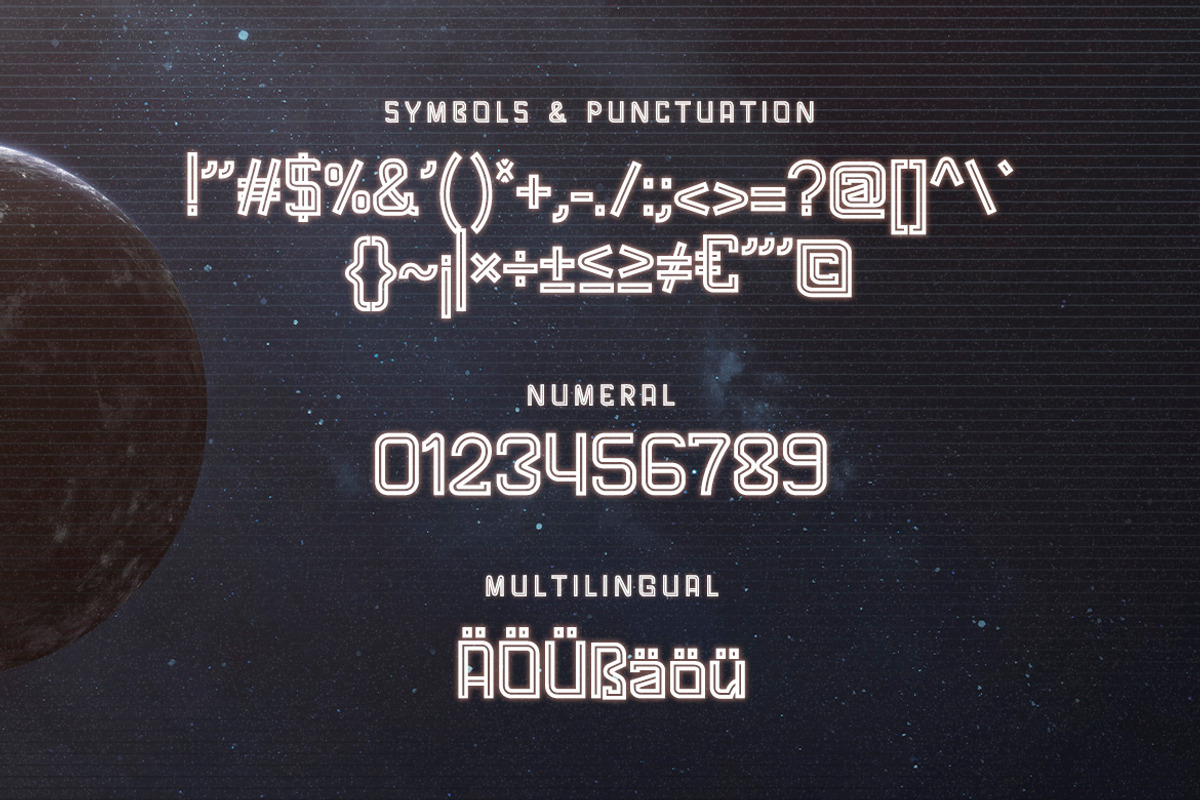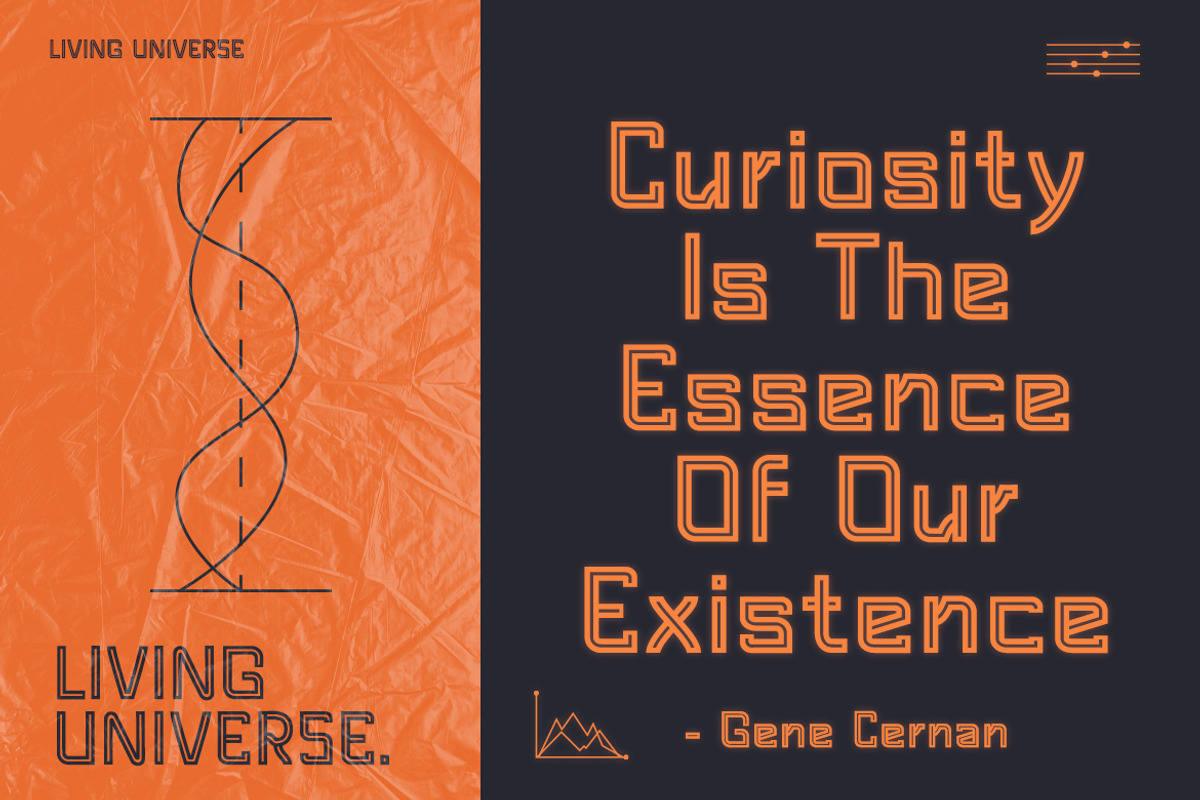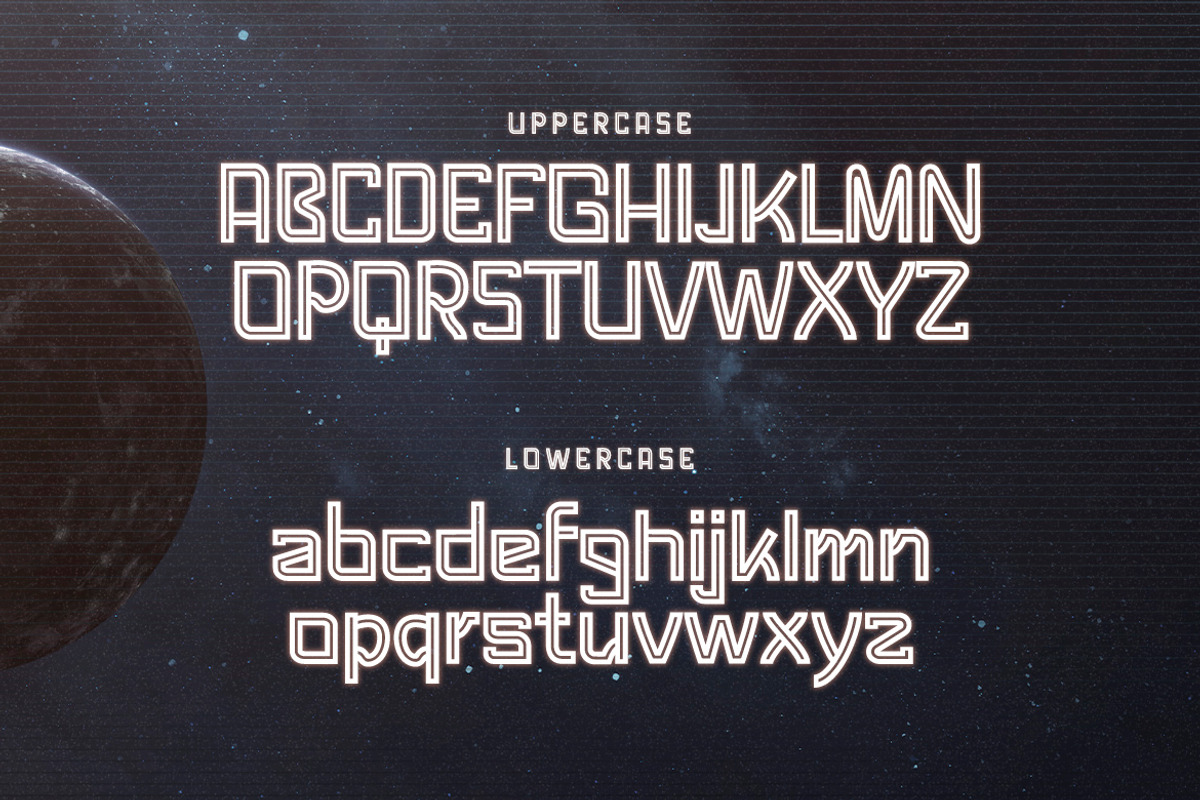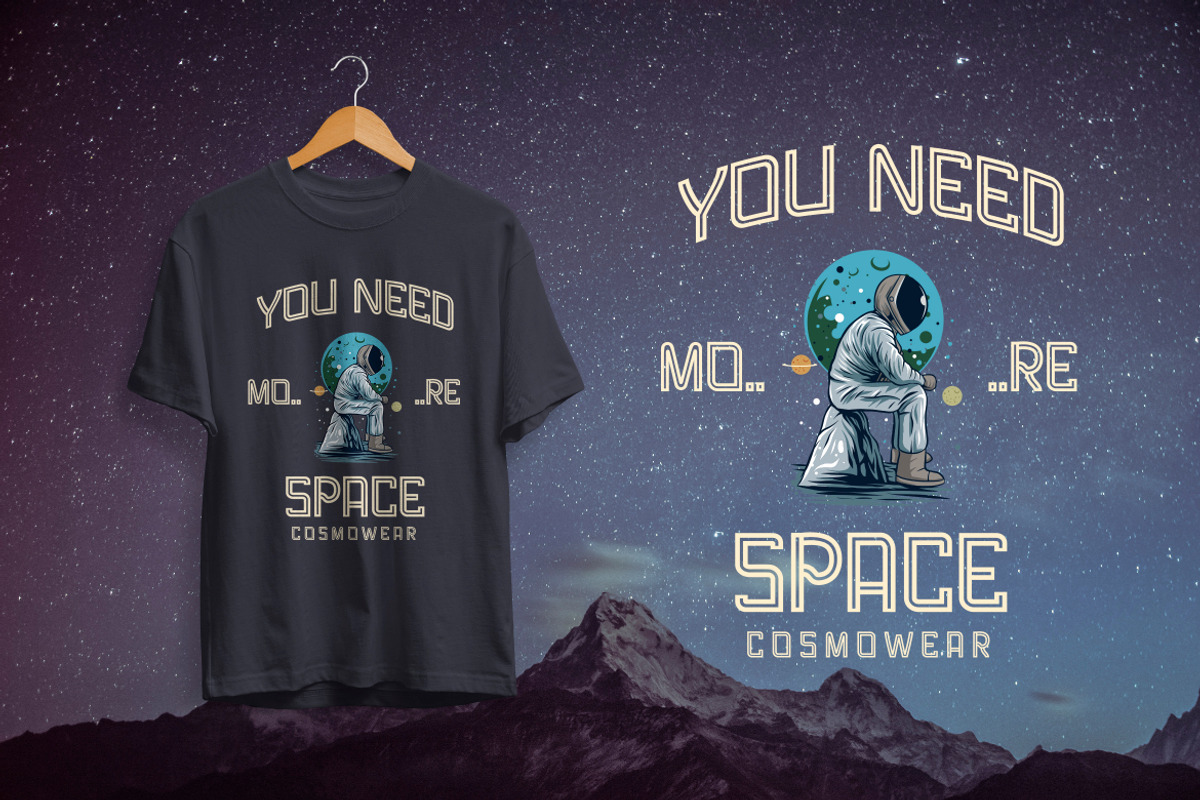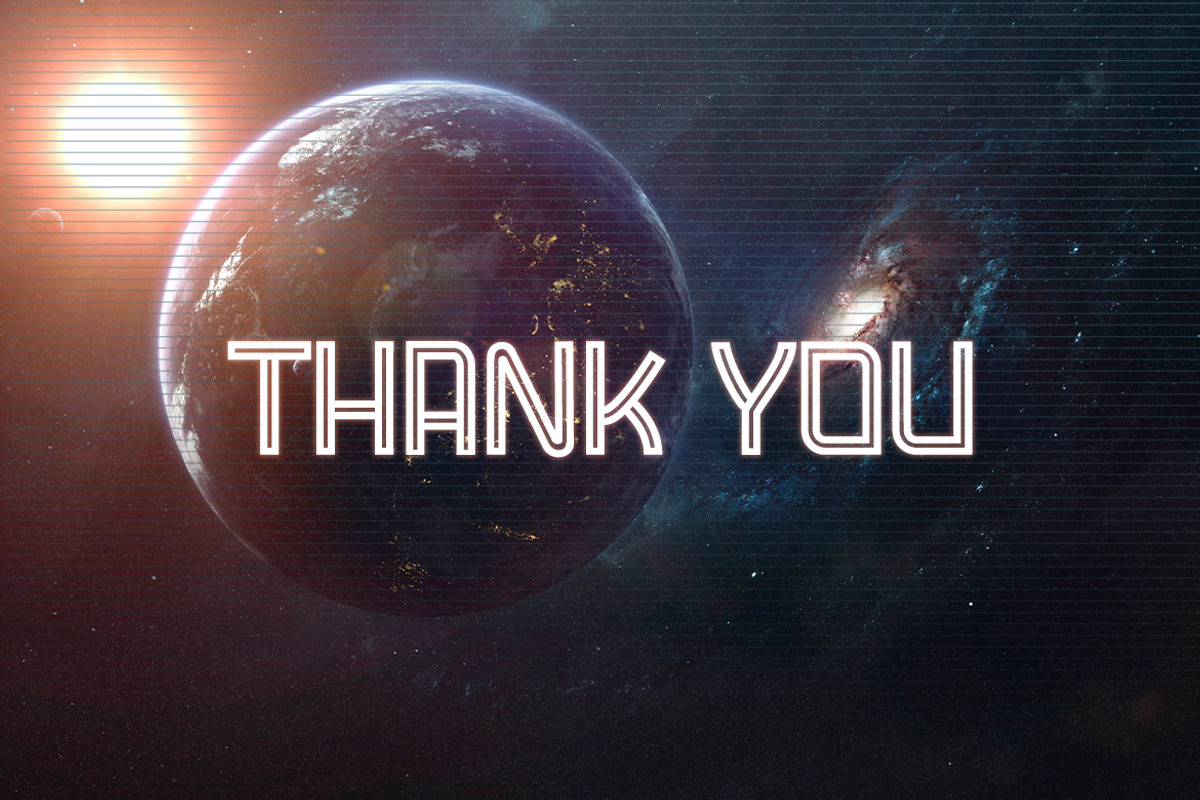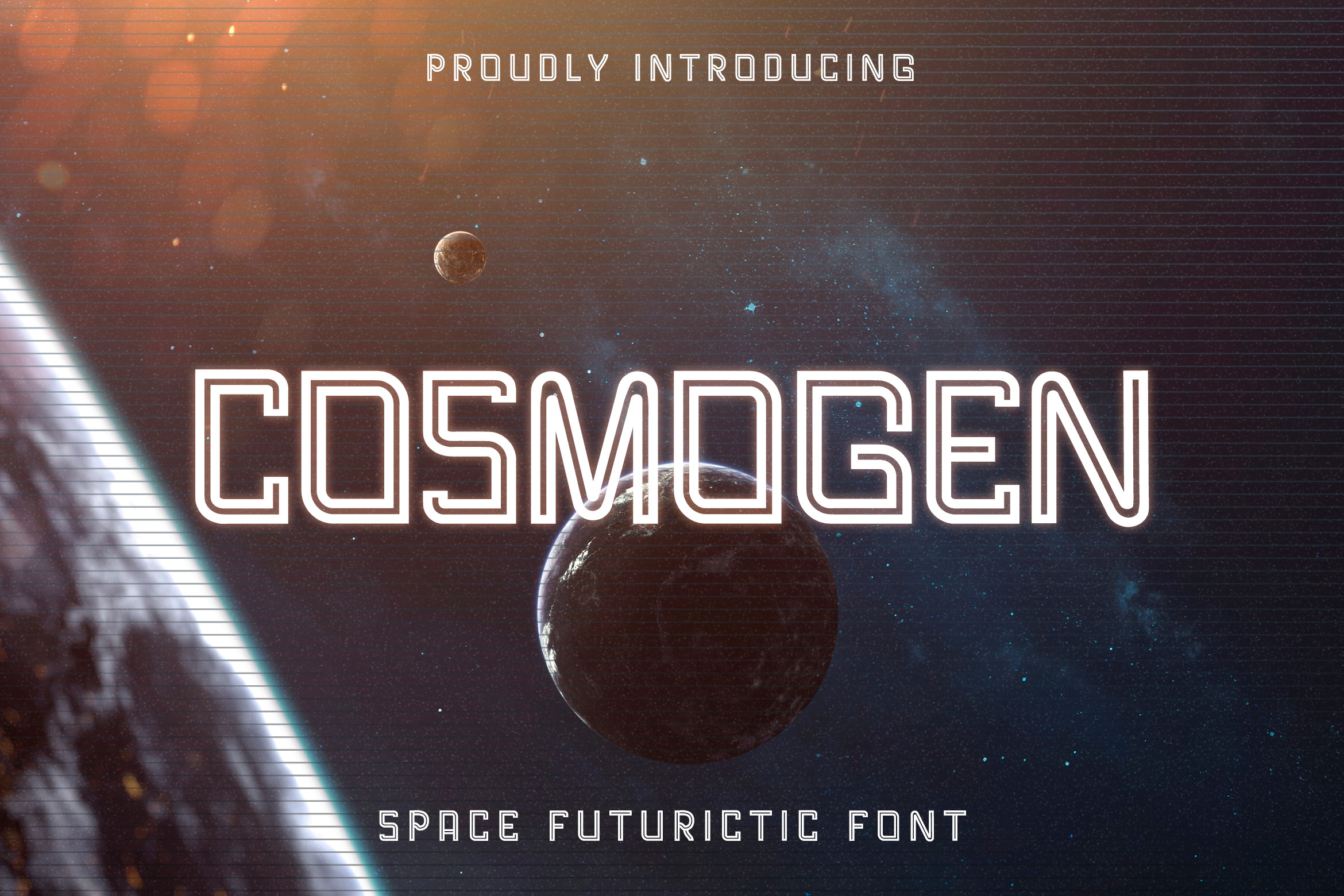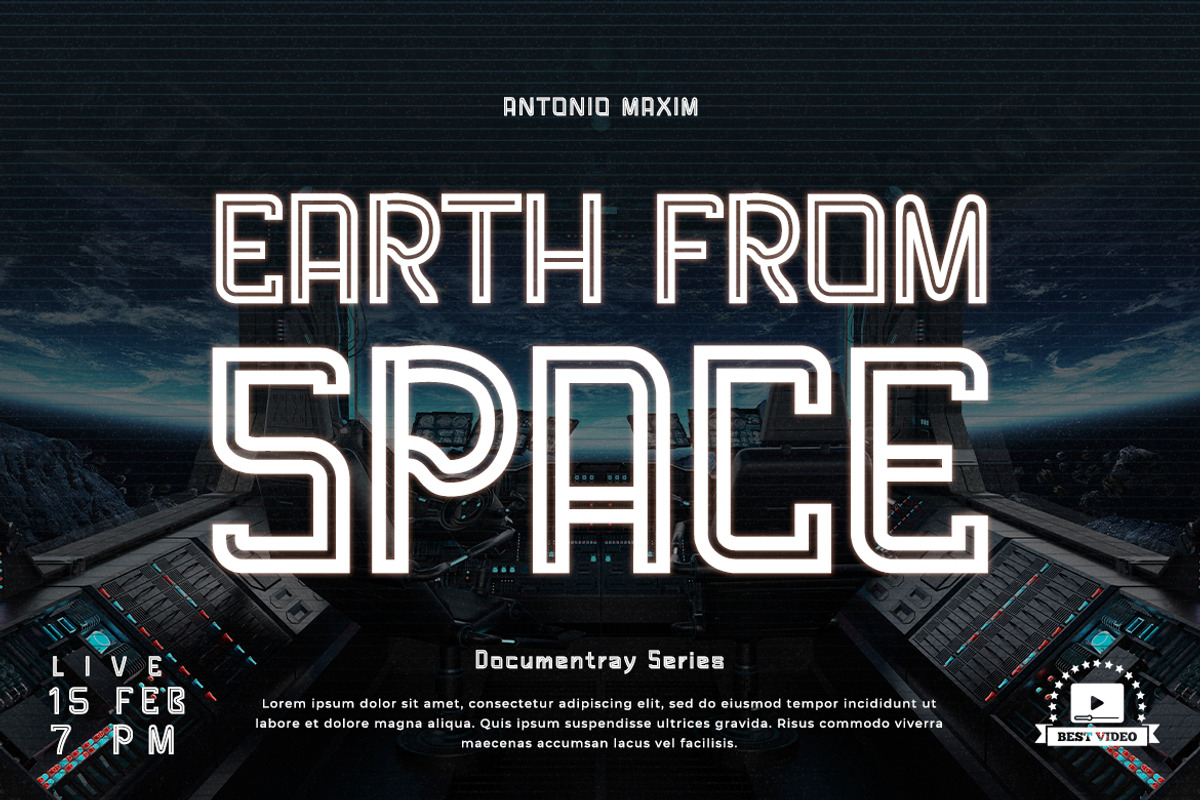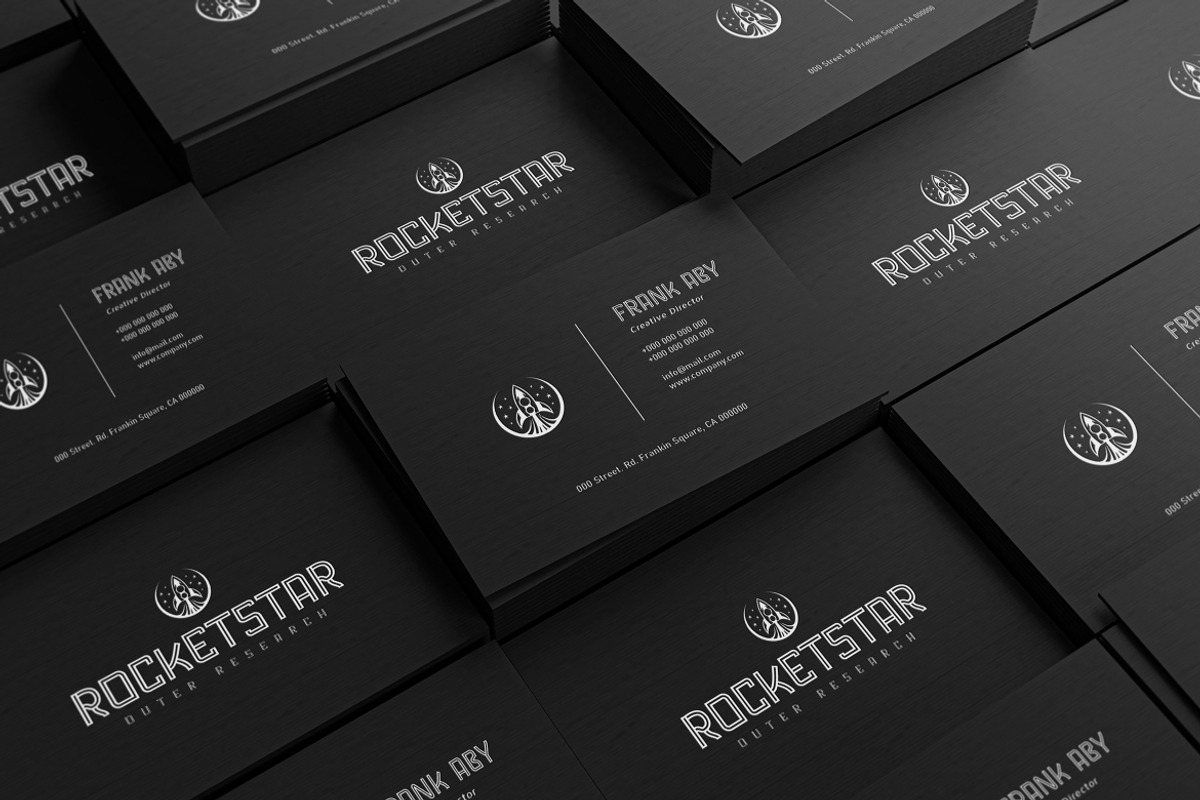
Cosmogen - Space Futuristic Font
Cosmogen is a modern, stylish and futuristic font created by TypeFactory. Cosmogen perfect for technology, sci-fi, digital, space galaxy theme. Also suitable for movie, documenter, film, logo, poster, game, book cover, headlines, title, sci-fi, and many more projects.
- Symbols & Punctuation
- Numeral